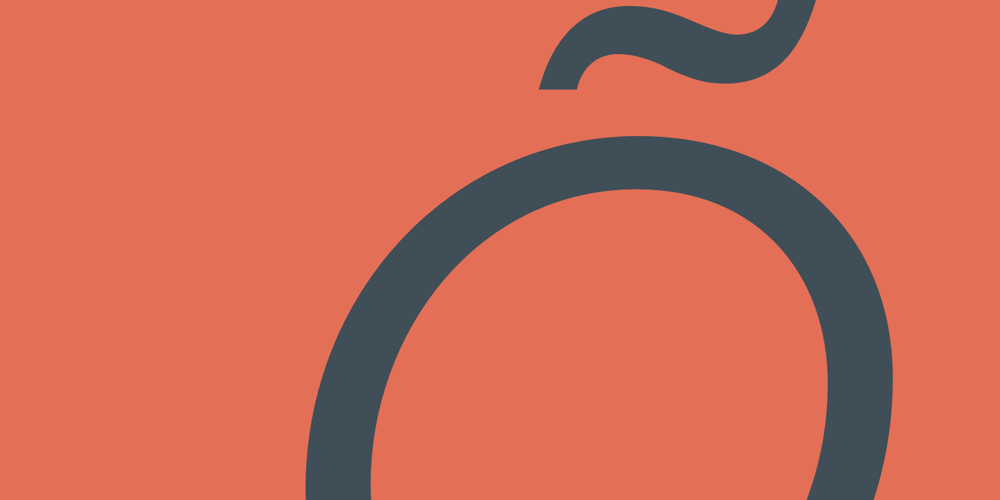
Neuzeit Office Font Family was designed by Akira Kobayashi, Linotype Design Studio and published by Linotype. Neuzeit Office contains 4 styles and family package options. The Neuzeit Office family is designed after the model of the original sans serif family Neuzeit S™ , which was produced by D. Stempel AG and the Linotype Design Studio in 1966. Neuzeit S itself was a redesign of D. Stempel AG’s DIN Neuzeit, created by Wilhelm Pischner between 1928 and 1939. Intended to represent its own time, DIN Neuzeit must have struck a harmonious chord. DIN Neuzeit is a constructed, geometric sans serif. It was born during the 1920s, a time of design experimentation and standardization, whose ethos has been made famous by the Bauhaus and De Stijl movements in art, architecture, and design. Upon its redesign as Neuzeit S in the 1960s, other developments in sans serif letter design were taken into account. Neuzeit S looks less geometric, and more gothic, or industrial. Separating it from typefaces like Futura, it has a double-storey a, instead of a less legible, single-storey variant. Unlike more popular grotesque sans serifs like Helvetica, Neuzeit S and especially the redesigned Neuzeit Office contain more open, legible letterforms. Neuzeit Office preserves the characteristic number forms that have been associated with its design for years. After four decades, Neuzeit has been retooled once again, and it is more a child of its age than ever before. Akira Kobayashi, Linotype’s Type Director, created the revised and updated Neuzeit Office in 2006. His greatest change was to retool the design to make its performance in text far more optimal. Additionally, he created companion oblique to help emphasize text.